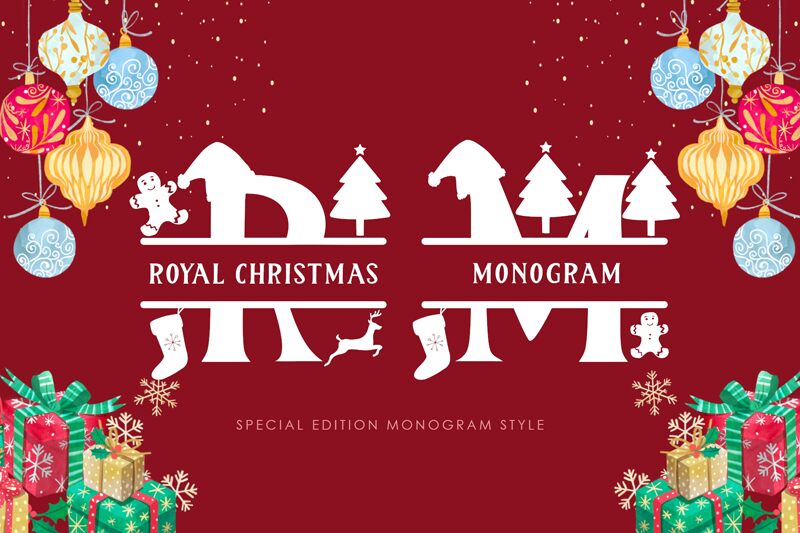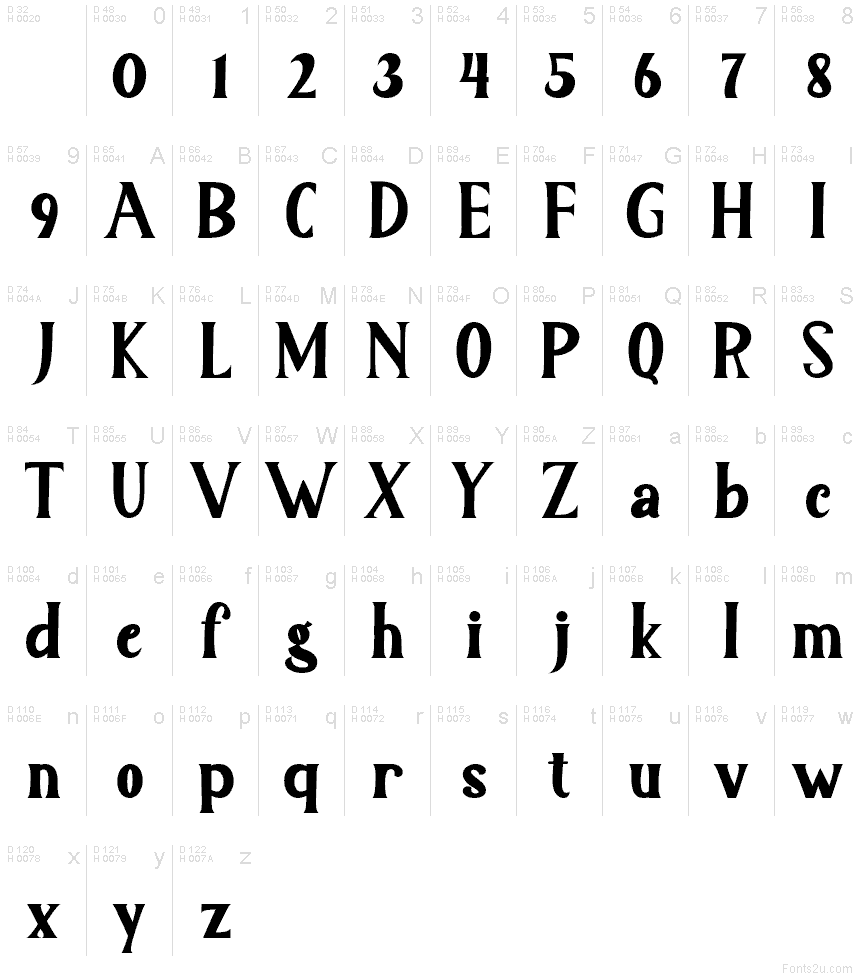
Royal Christmas Monogram
Royal Christmas Monogram font by Yoga Letter is a free Christmas holiday typeface that turns initials into little festive centerpieces. Its tall, slightly condensed letters, softly flared strokes, and storybook curves feel like they were pulled from an old-fashioned Christmas card, giving every word a cozy, heirloom quality. The rhythm is upright and steady, so even ornate monograms stay readable on gifts, packaging, or seasonal signage.
Using Royal Christmas Monogram, you can create custom gift tags, stockings, mugs, greeting cards, ornaments, and Pinterest-ready quote prints that feel instantly seasonal without needing extra graphics. The letters hold their charm at larger sizes, making this free font shine on big initials and short phrases. Pair it with a simple sans serif for small supporting text to keep the monogram work crisp and elegantly festive.